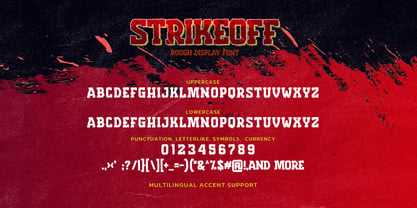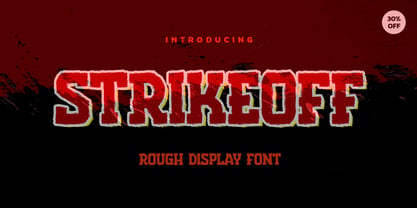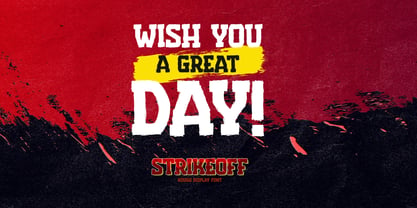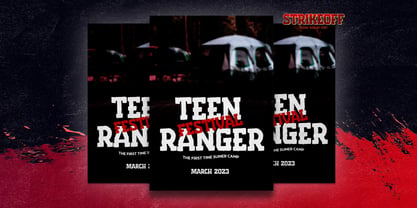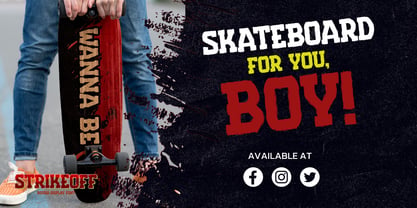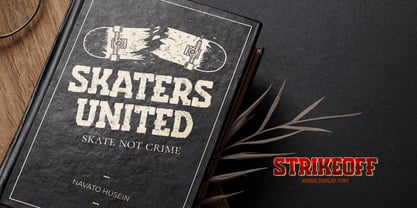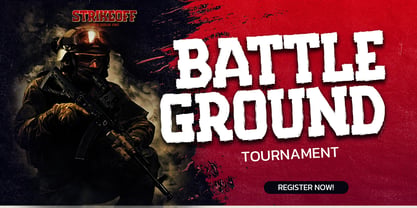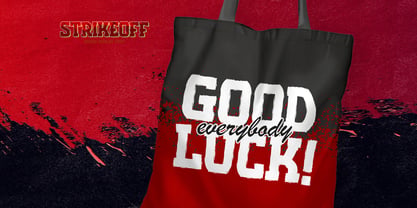
Strikeoff
by Almarkha Type
The Strikeoff Font Family was designed by Abdul Malik Wisnu and published by Almarkha Type. Strikeoff contains 1 styles. More about this family
STRIKEOFF is a bold and rugged display typeface designed with a distressed, energetic character. Its strong edges, rough textures, and striking layered outlines create an intense visual presence, making STRIKEOFF ideal for designs that require power, grit, and bold expression. With aggressive cuts and a raw handcrafted feel, STRIKEOFF adds a dramatic punch to any layout, perfect for projects needing a fierce, impactful, and eye-catching style.